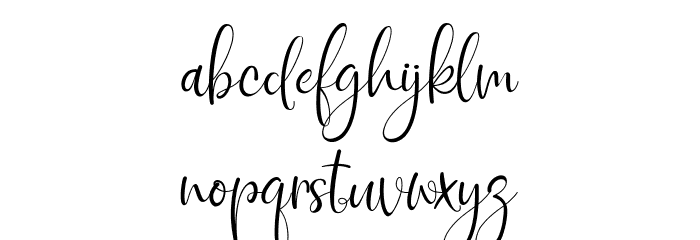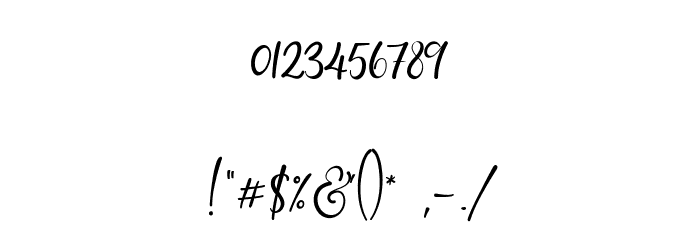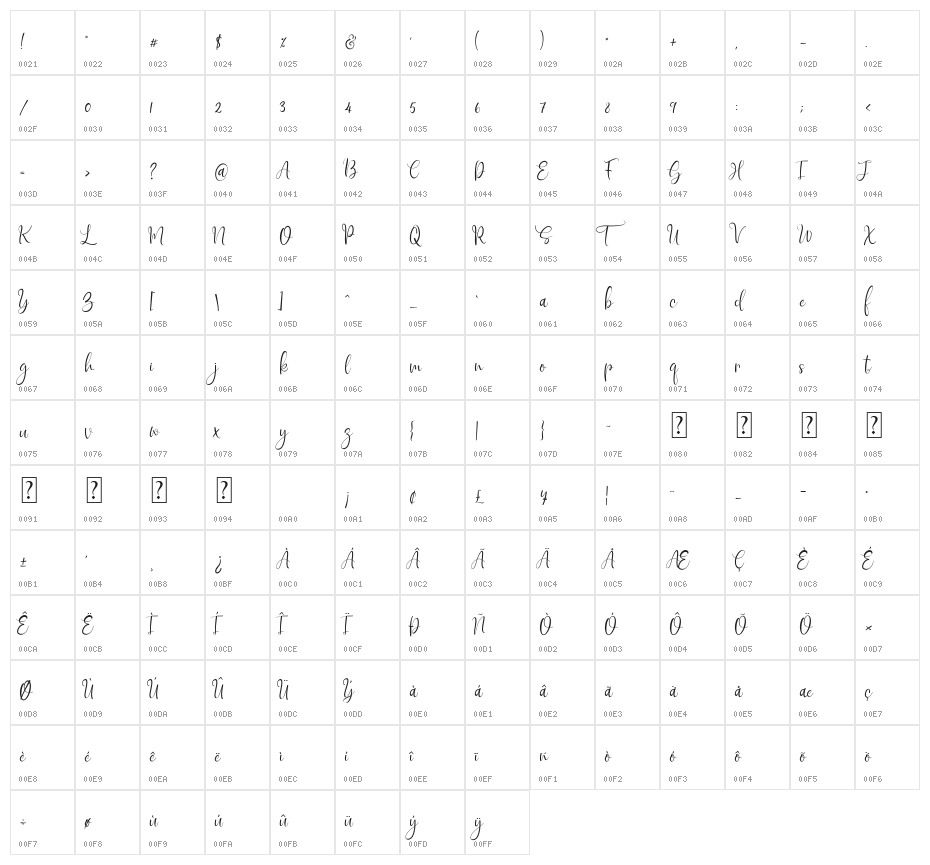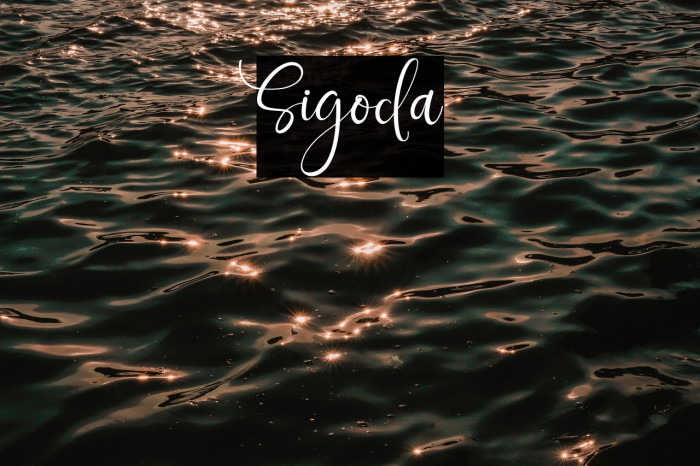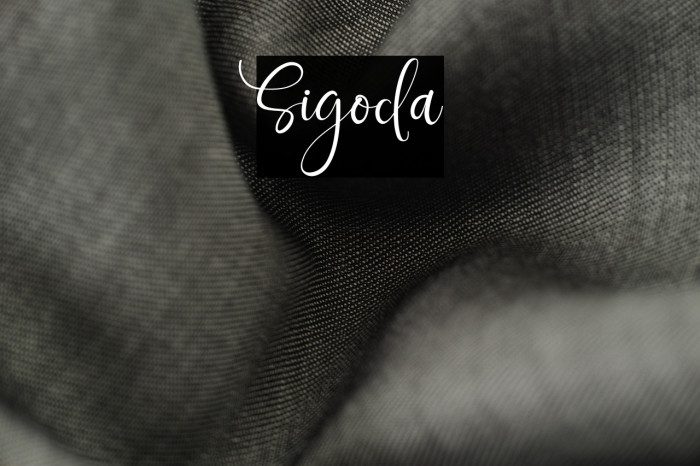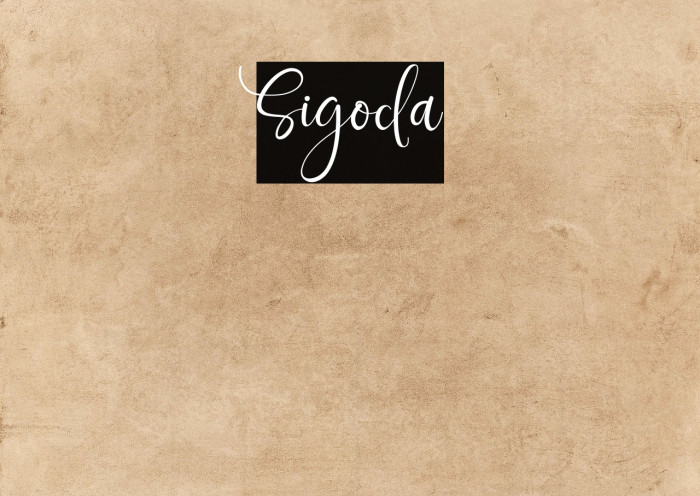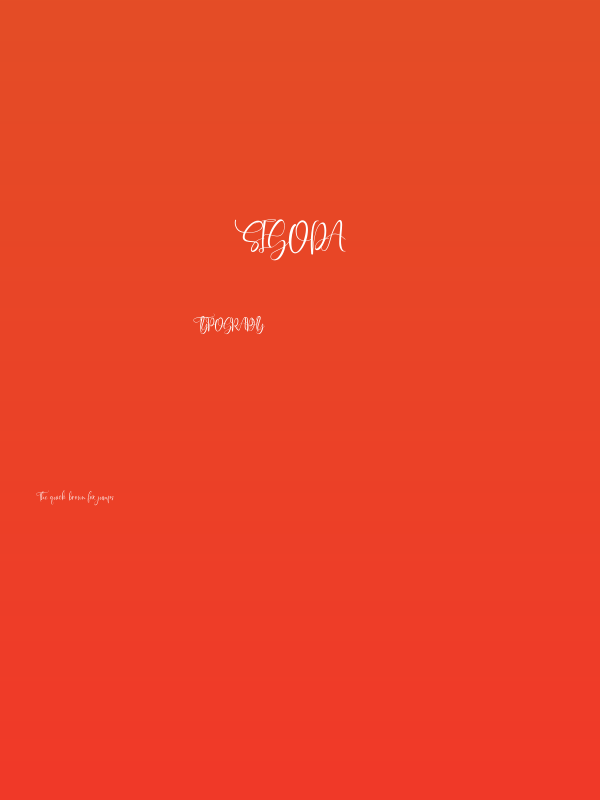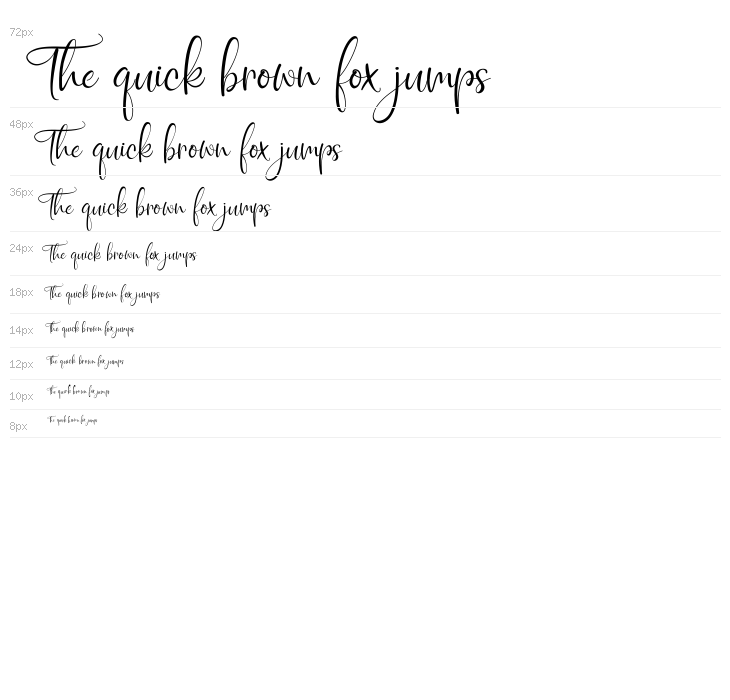
Sigoda Font
This font features an elegant and flowing script style, characterized by its intricate and decorative letterforms. The uppercase letters are particularly ornate, with sweeping curves and flourishes that give a sense of movement and grace. The lowercase letters maintain a cohesive style, with a slightly more restrained design that complements the uppercase. The numerals and special characters are designed to match the overall aesthetic, ensuring consistency across all text. This font's artistic flair makes it suitable for projects that require a touch of sophistication and creativity.
An elegant and flowing script font with intricate, decorative letterforms.
- Proposed Projects: Ideal for wedding invitations, greeting cards, branding, and logo design where elegance and sophistication are desired.
- Use Case: Logos, Invitations, Decorative text